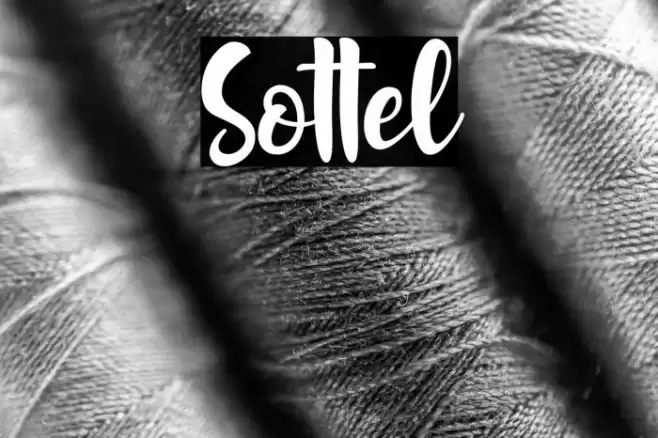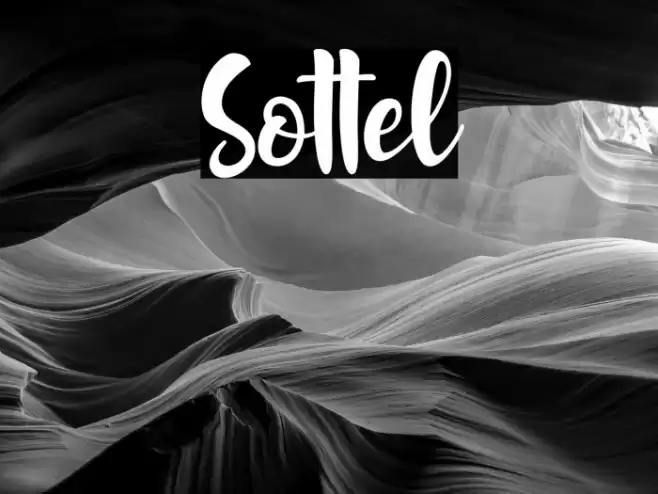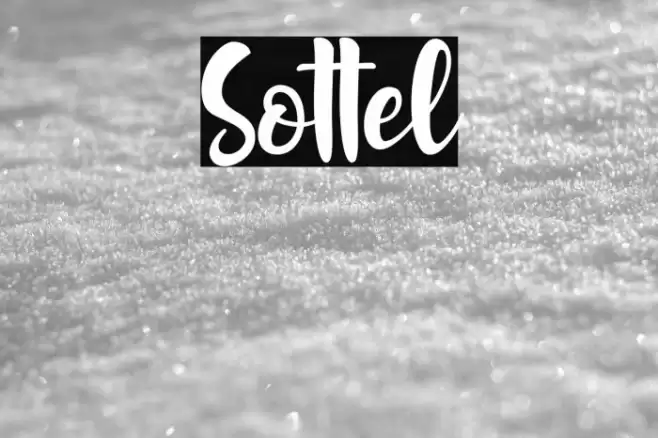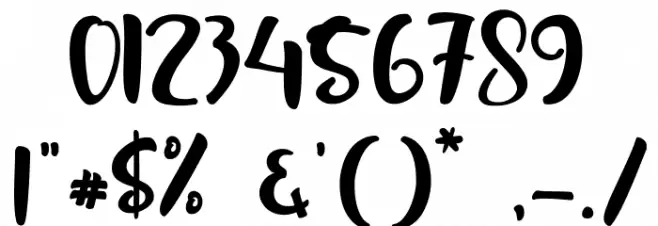
Sottel Font
Sottel Description
This font features a playful and bold script style with a handwritten feel. The characters are slightly slanted, giving a dynamic and lively appearance. The uppercase letters are robust and rounded, while the lowercase letters maintain a consistent flow with smooth curves and loops. The numbers are equally expressive, matching the overall whimsical aesthetic. Special characters are creatively designed, adding to the font's unique charm. The strokes are thick, providing a strong presence, yet the overall design remains approachable and friendly.
A bold, playful script font with a handwritten style from Regular fonts.
- Proposed Projects: Ideal for greeting cards, playful branding, children's books, and creative posters.
- Overall Style: Playful, Handwritten